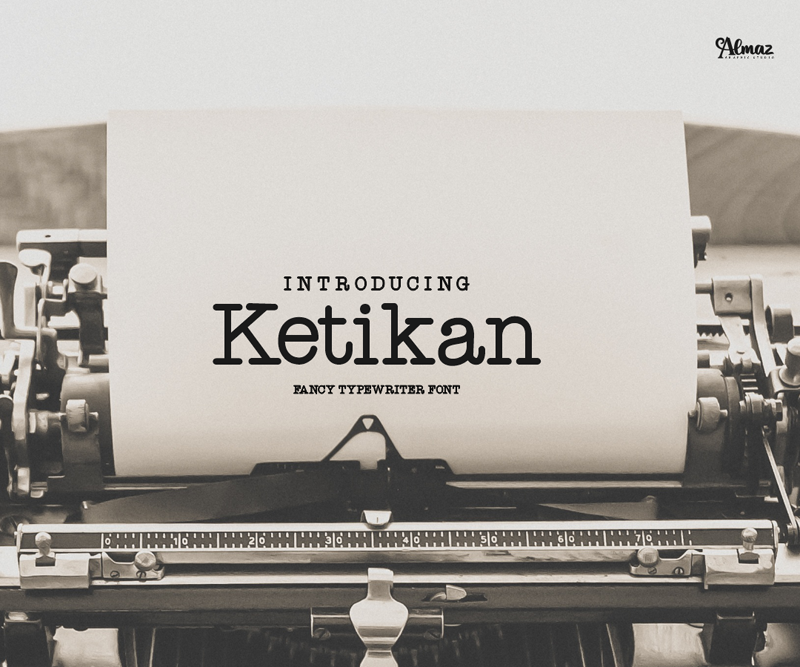
Preview and download Ketikan Font. Created by Almaz.id in Fancy Typewriter styles with Demo license.
Ketikan font creative and unique alternative solid typewriter font. The perfect font when looking for that authentic and original typewriter feel to your designs. This demo font is for PERSONAL USE ONLY! Please contact me before any commercial use. My fonts for free use allowed only in personal project, non-profit and charity use. If you make money from using my fonts, Please purchase a commercial license here : https://almazstd.com/fonts/ketikan/ But any donation are very appreciated. PayPal account for donation : https://www.paypal.me/almazstd For more information about my fonts, please check on my web; www.almazstd.com THANK YOU... :) |